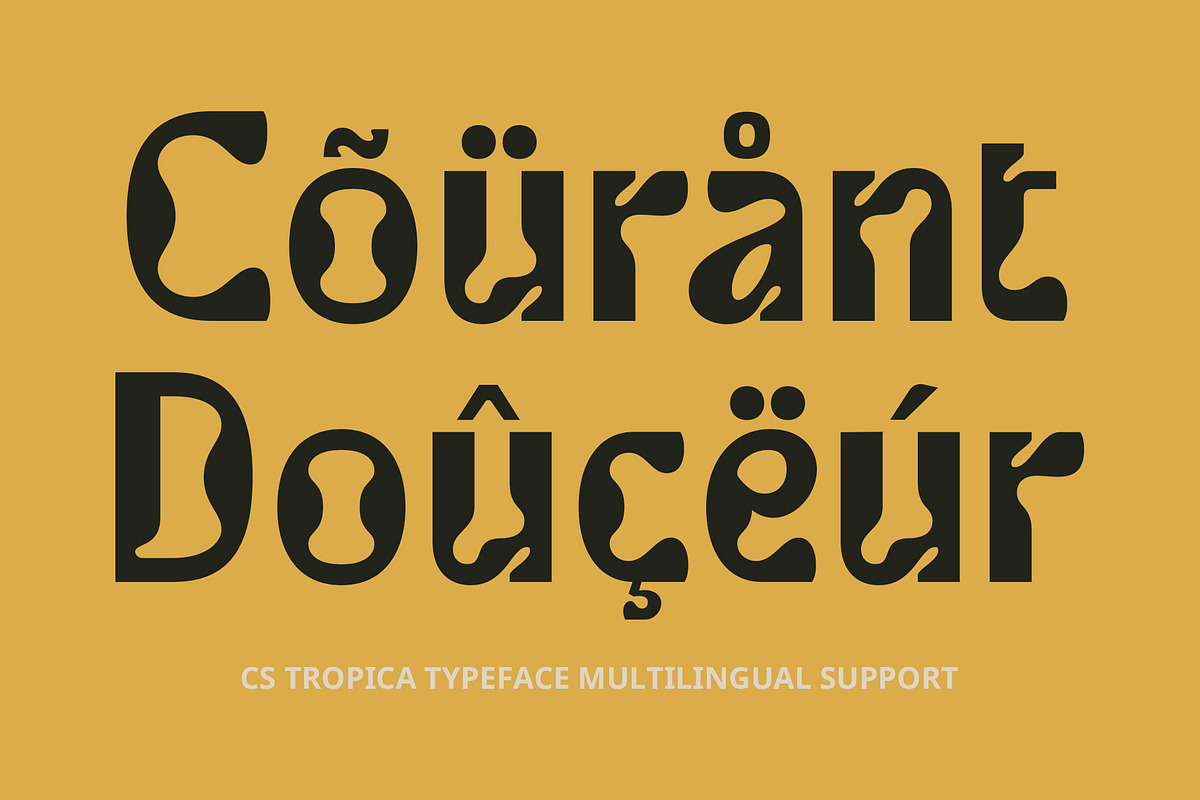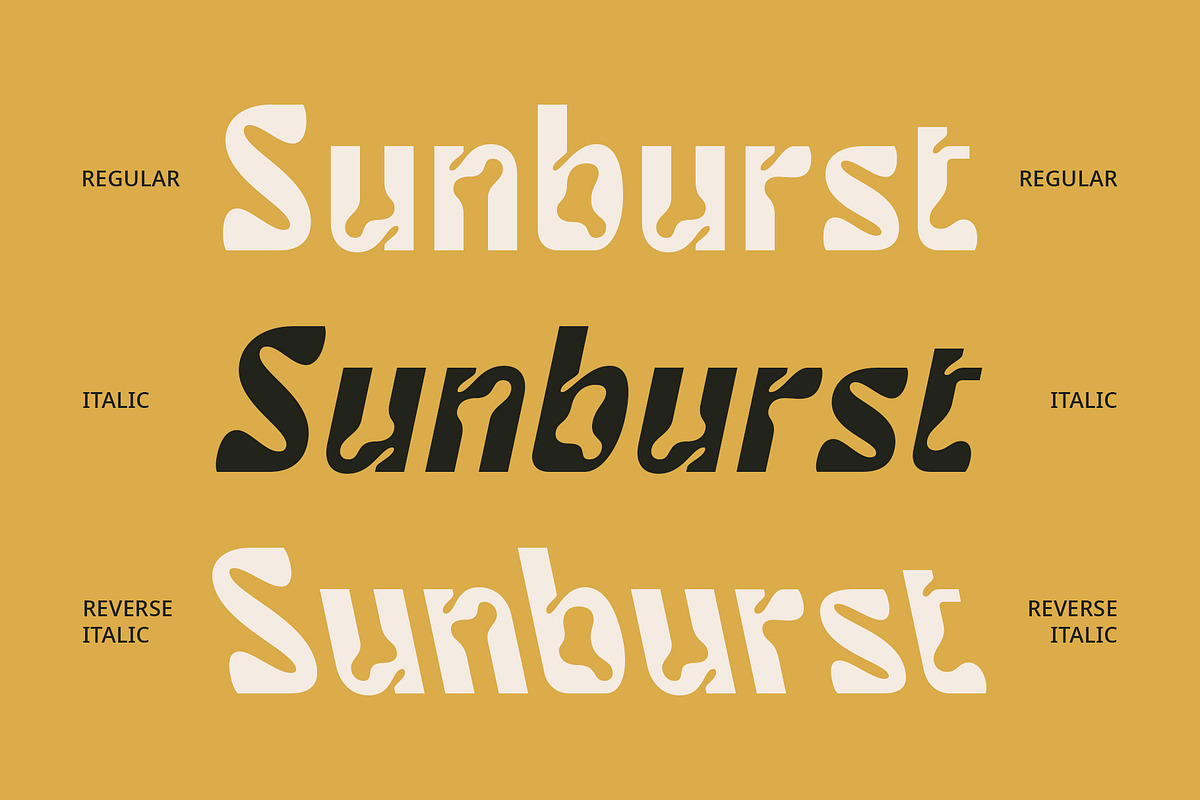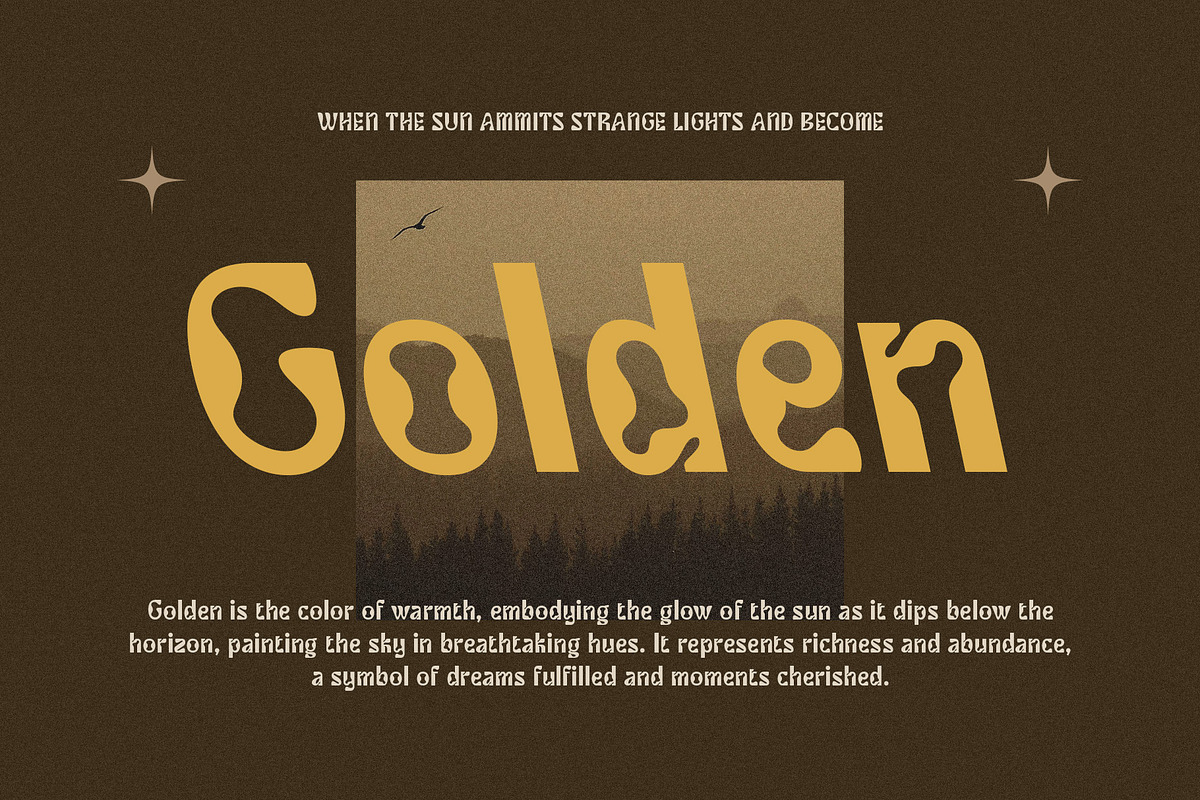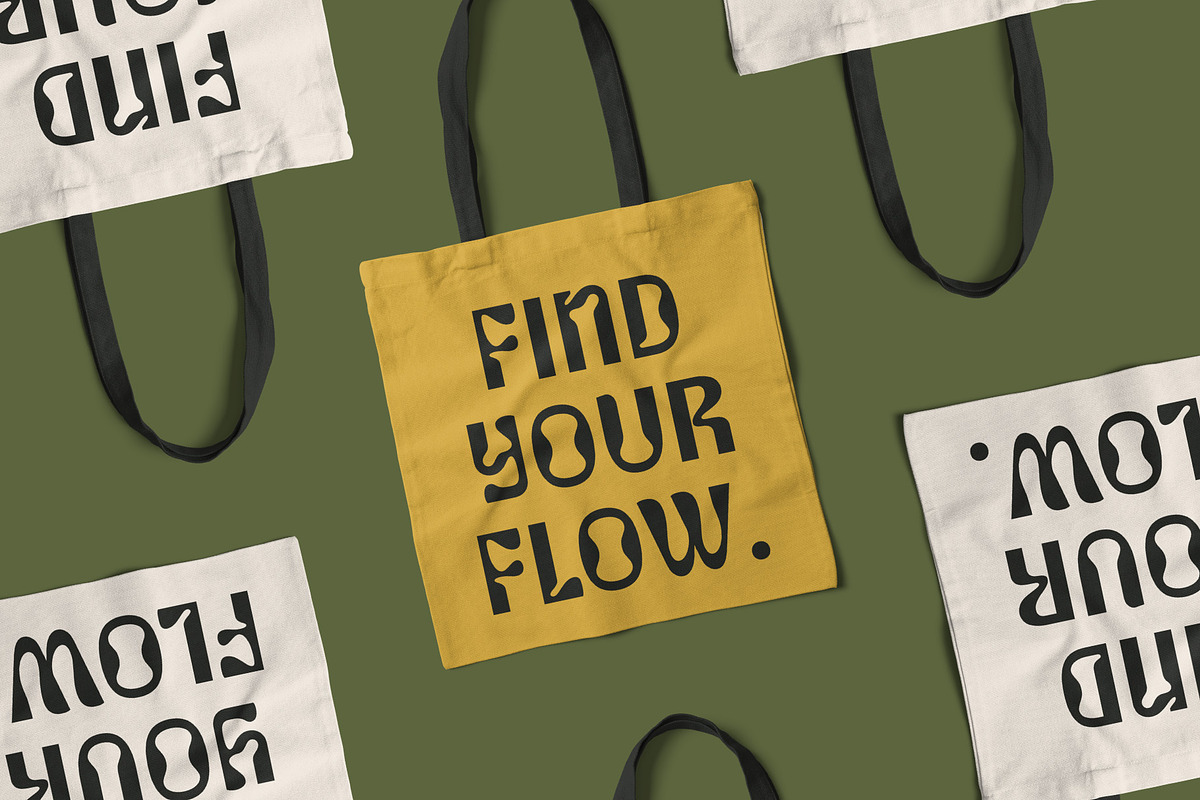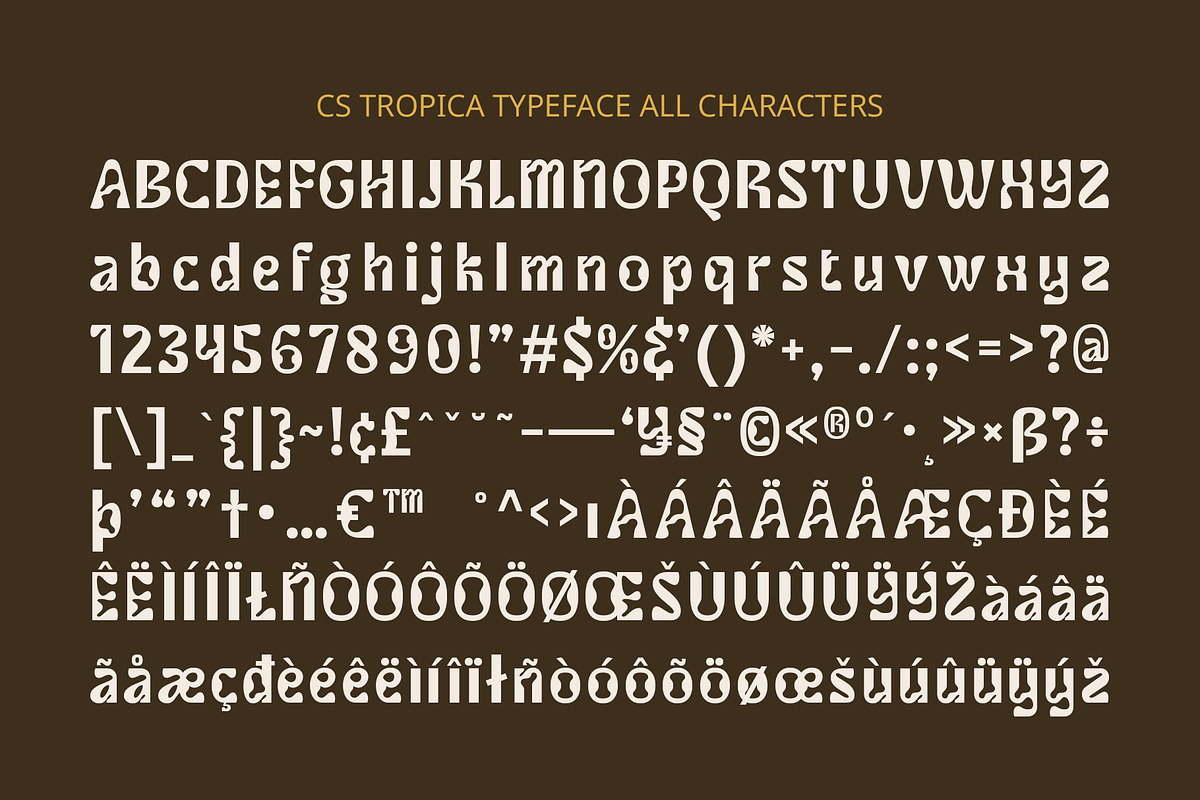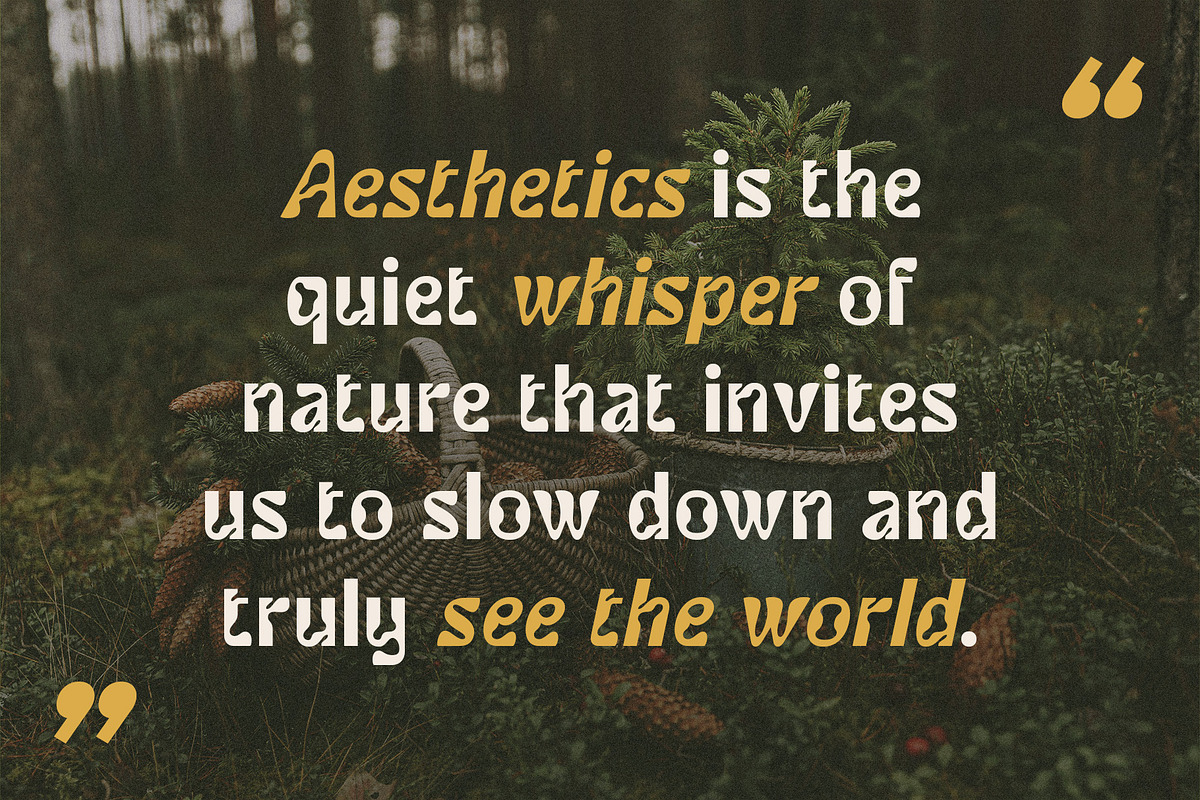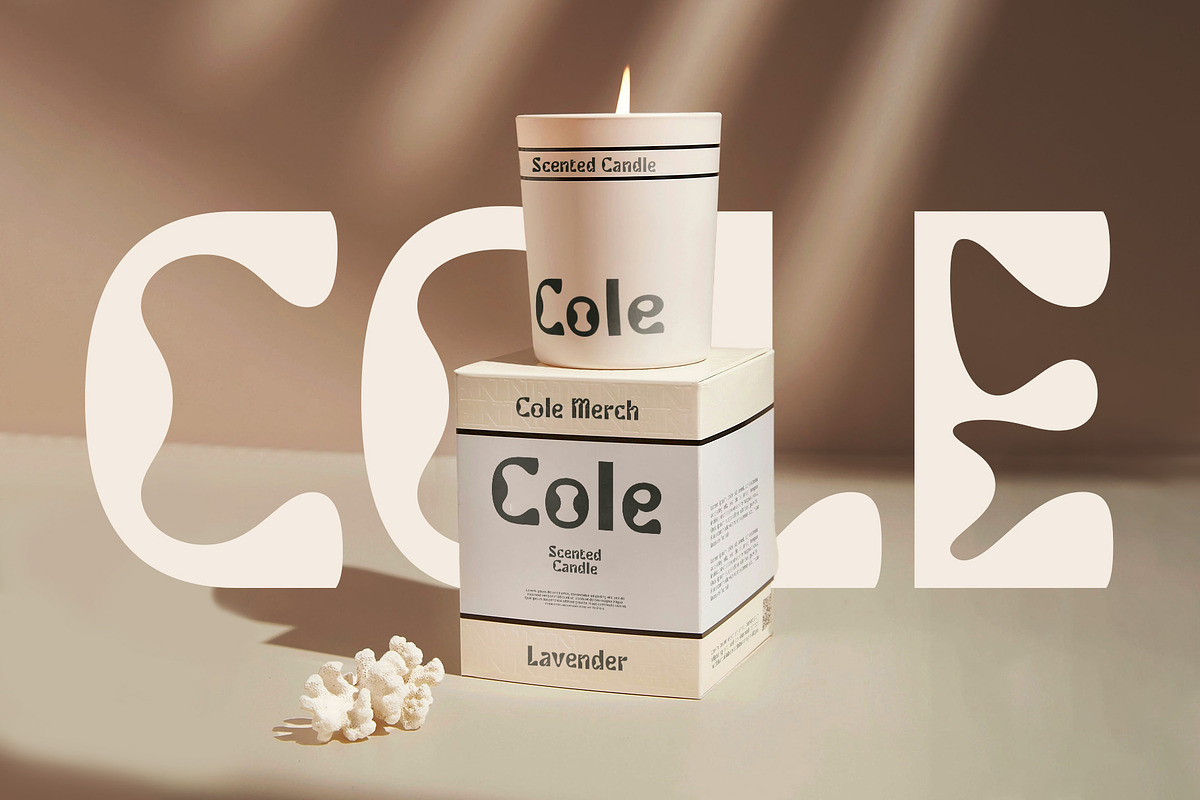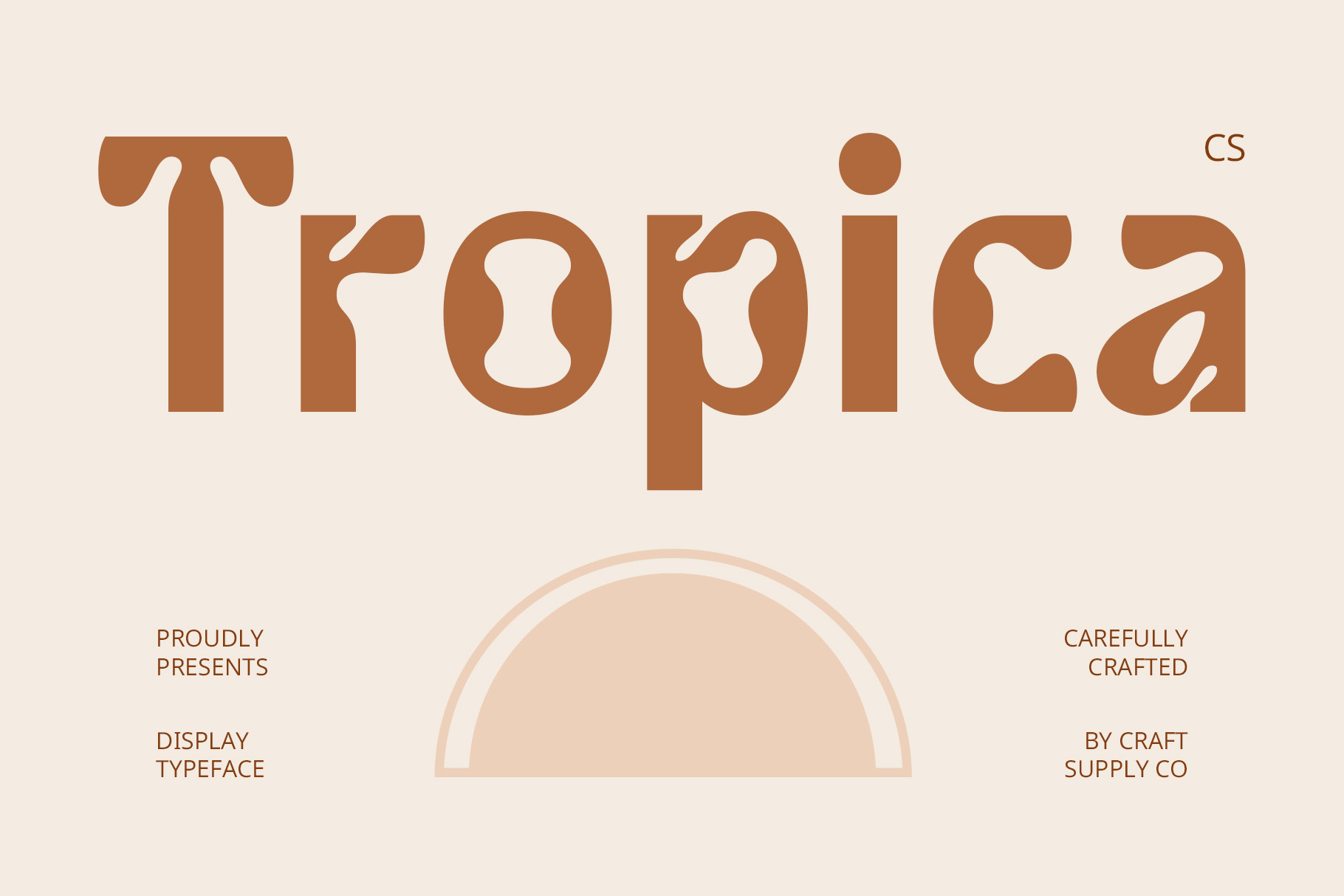
CS Tropica – Psychedelic Font
CS Tropica – Psychedelic Display Font
Bold and Unique Design CS Tropica is a captivating display sans serif font that embraces a psychedelic design, characterized by its unique and bold aesthetic. With fluid curves and irregular shapes, this font creates a dynamic visual impact that is sure to grab attention. The playful design elements evoke a sense of creativity and whimsy, making it an excellent choice for projects that aim to convey a fun and energetic spirit. Each character is thoughtfully crafted to ensure a harmonious flow, enhancing the overall visual experience.
Vibrant Visual Appeal Featuring bright colors and striking variations in form, CS Tropica stands out in any context. Its lively character is perfect for event posters, children’s products, or entertainment-oriented graphic designs, where eye-catching visuals are essential. This font captures the essence of a vibrant and joyous atmosphere, inviting viewers to engage and explore. The exuberance of CS Tropica is not only about aesthetics; it’s about creating an experience that resonates with the audience, evoking feelings of joy and excitement.
Ideal for Creative Projects Whether you’re designing promotional materials for a music festival, crafting playful branding for a kids’ toy line, or creating graphics that celebrate creativity, CS Tropica delivers. Its cheerful vibe and distinctive shapes make it ideal for projects that prioritize fun and individuality.
- CS Tropica Regular
- CS Tropica Italic
- CS Tropica Reverse Italic